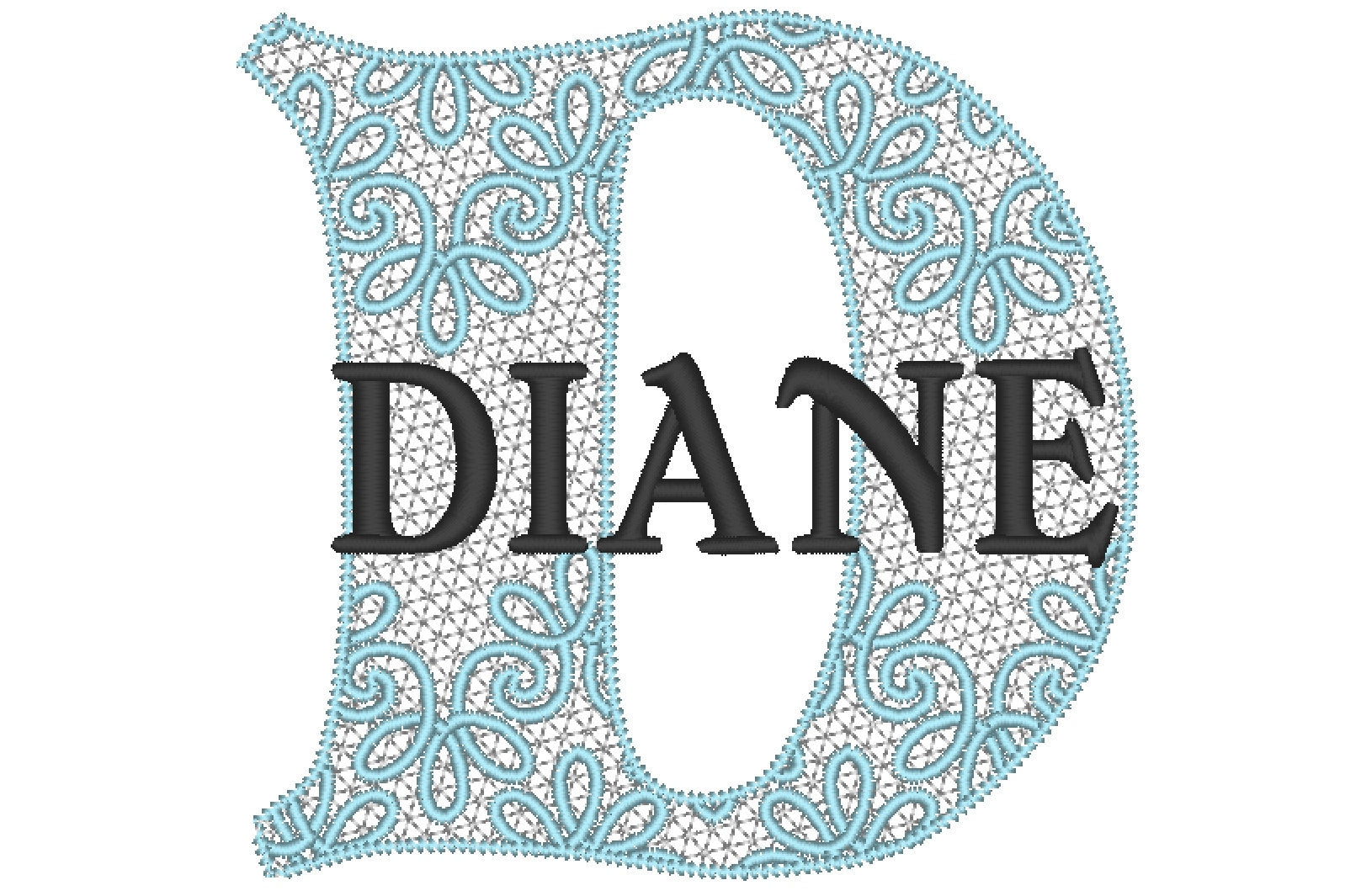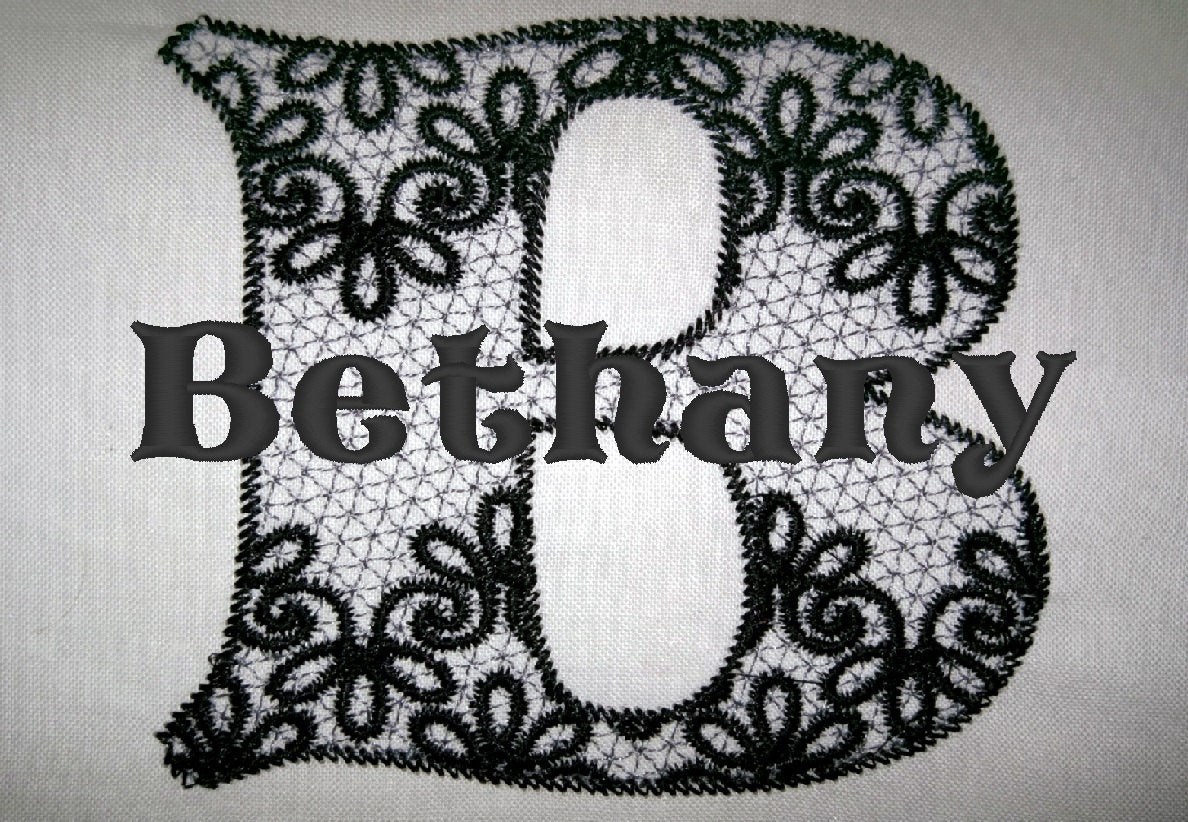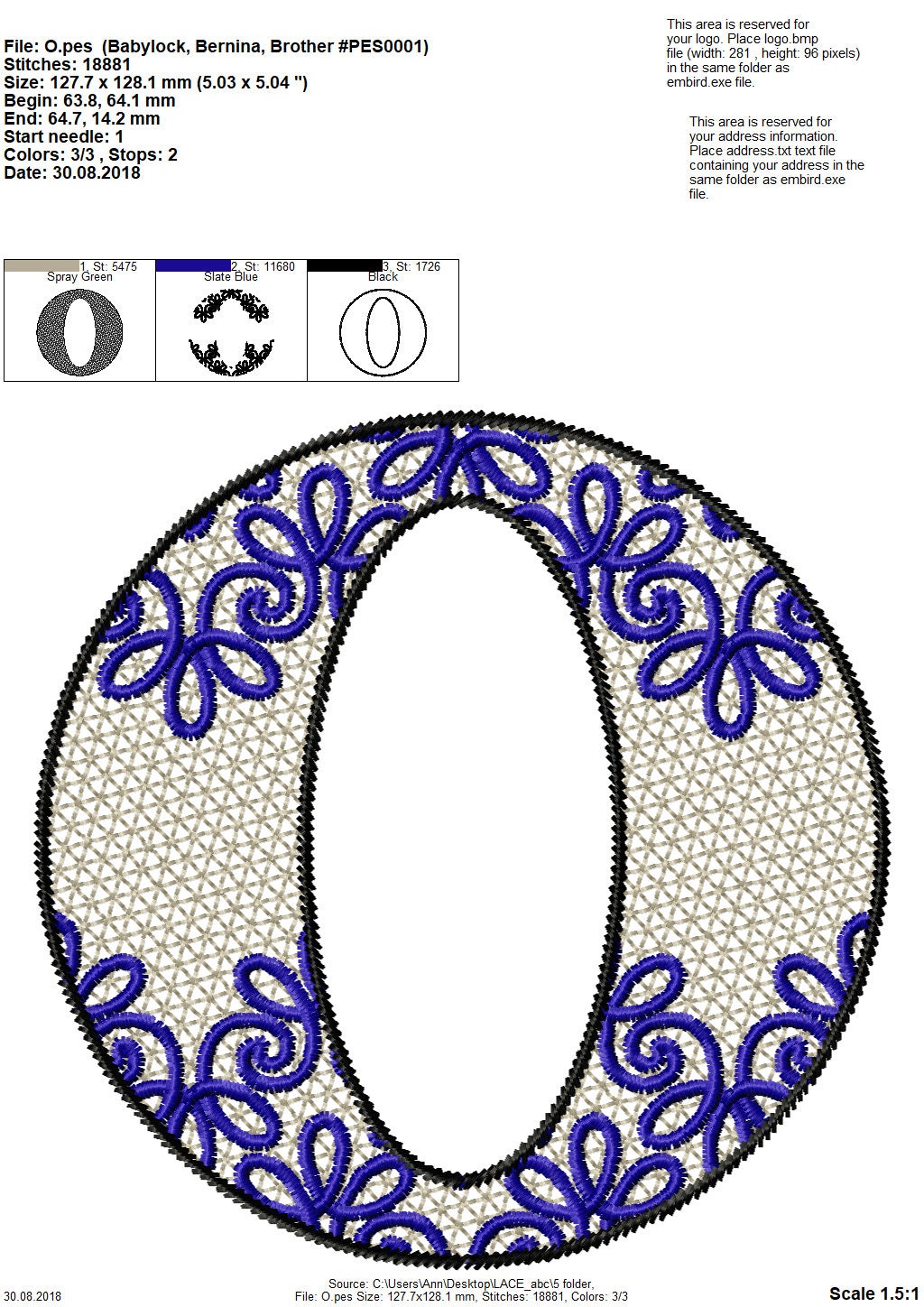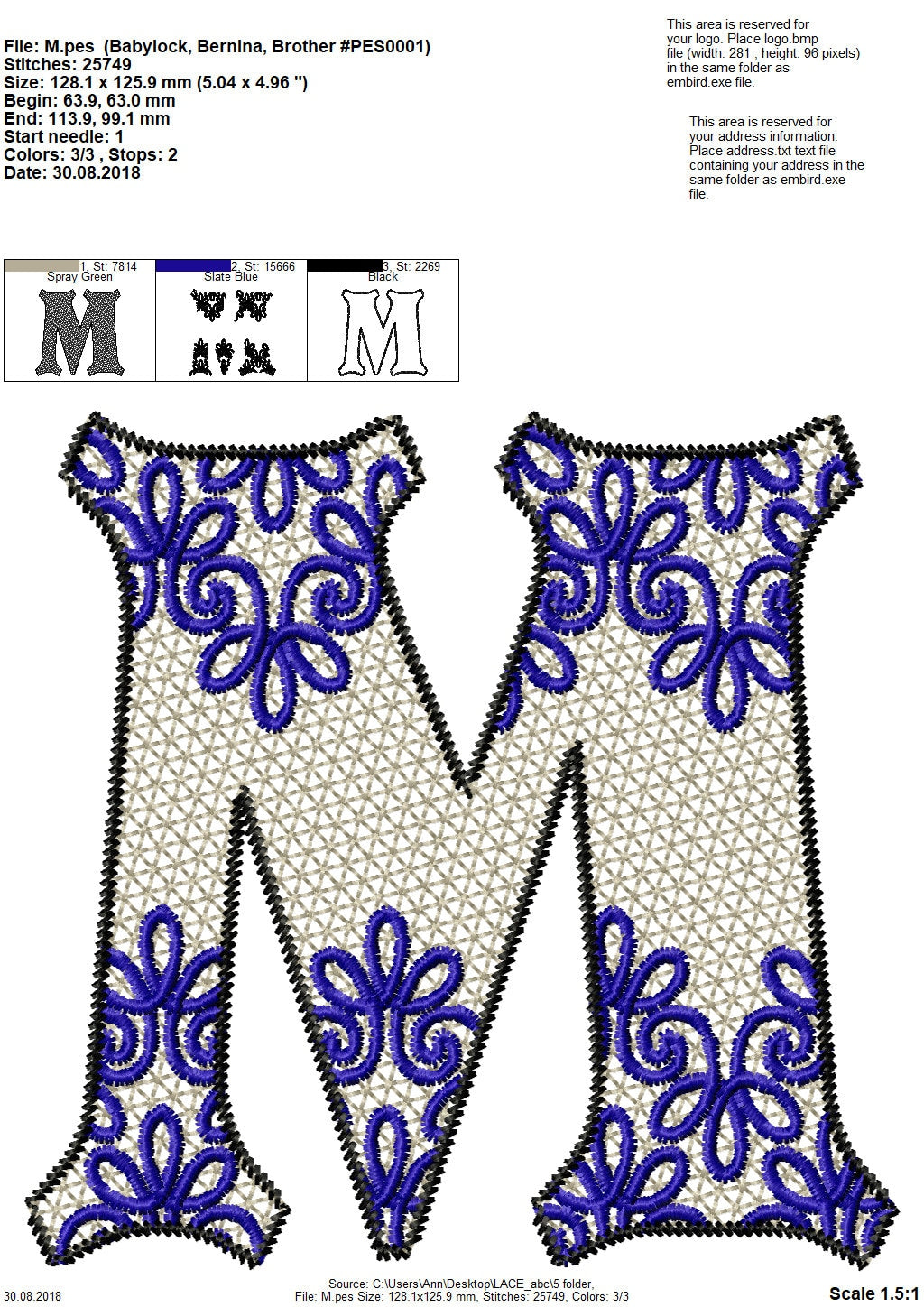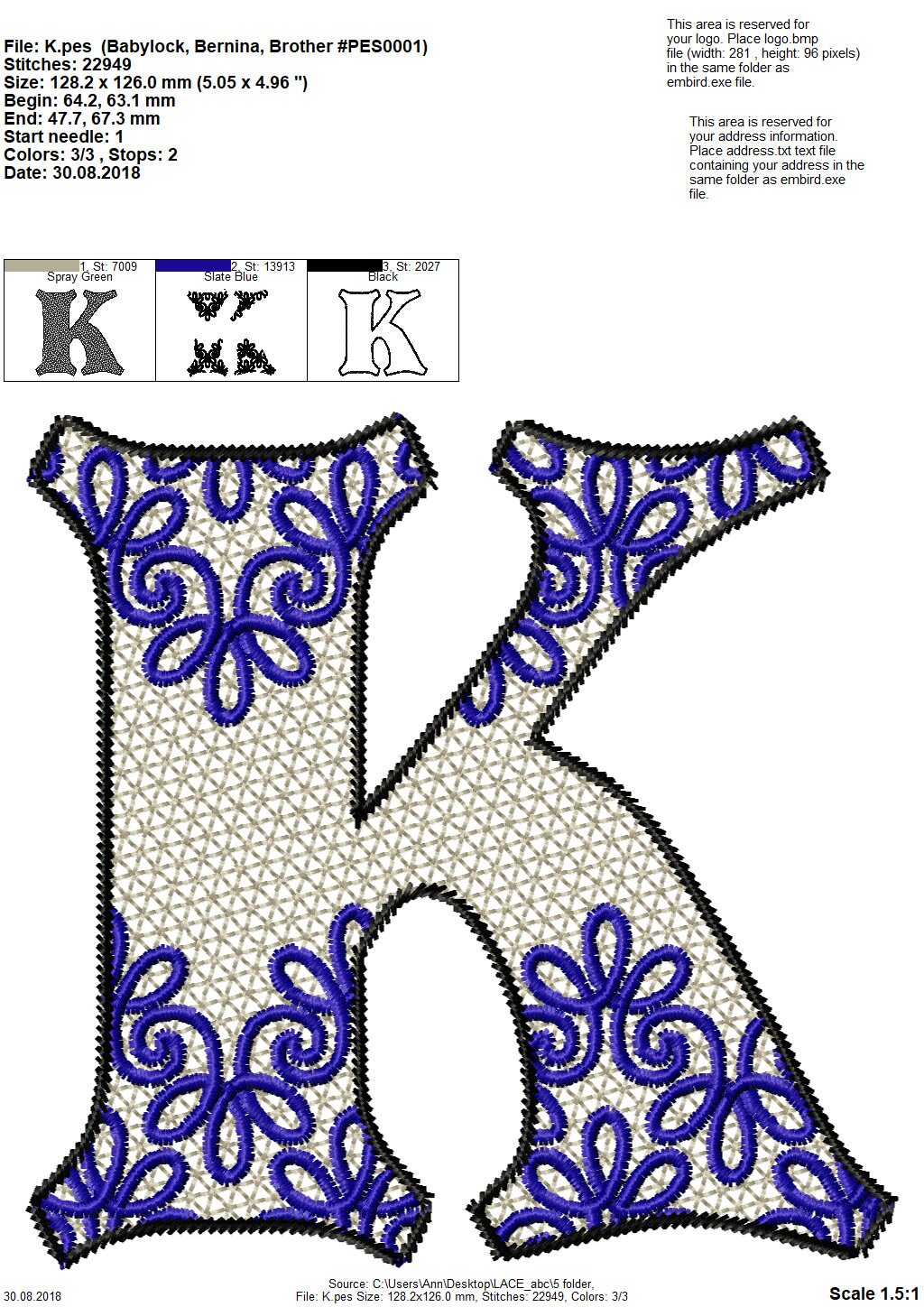
Or click to open the linkLace-style split monogram letters with a matching mini font that fits into the split. Lovely for towels, pillows, napkins and wedding gifts.
The split letters come in 4, 5 and 6 inches. The mini font comes in seven sizes from 0.6 to 2.5 inches, so a name or initials fit neatly into the split.